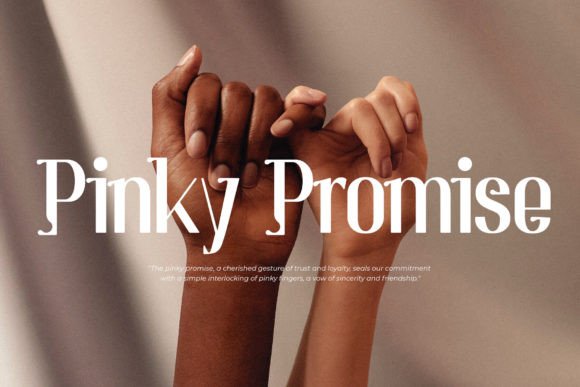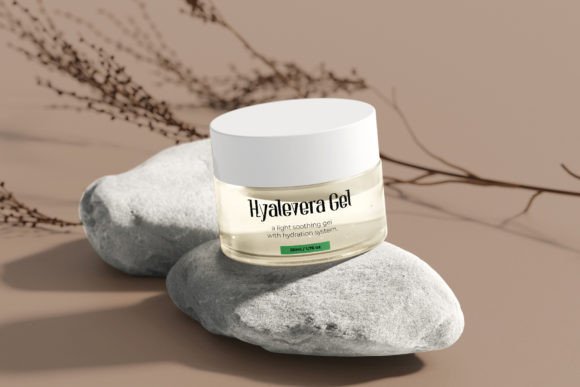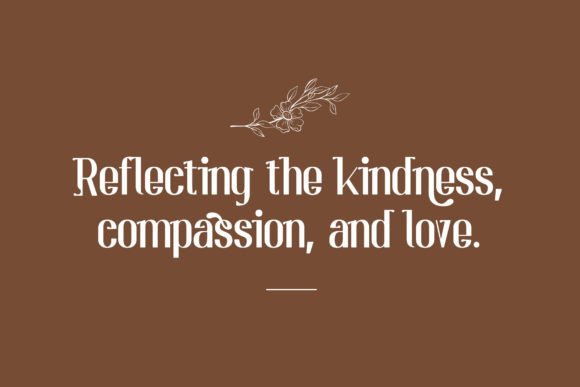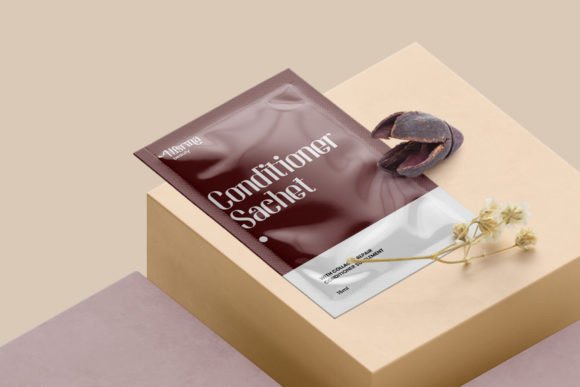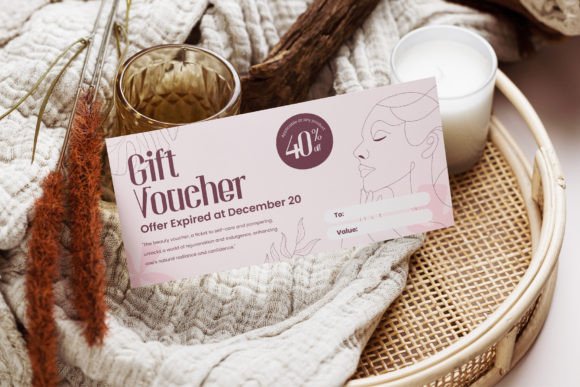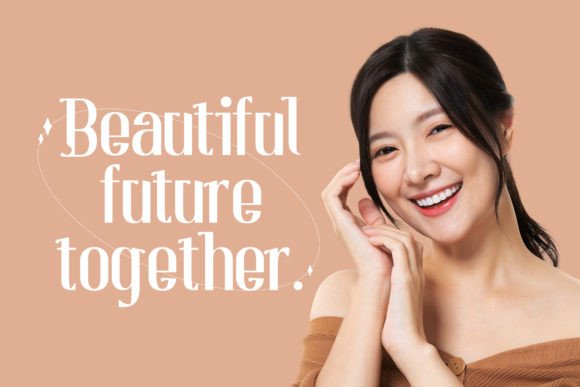
Introduction to Nisrina Font Font
Fonts play a crucial role in design, and the Nisrina Font font is a typeface that brings both character and versatility to any project. Whether you’re working on a branding project, a website, or a print design, the Nisrina Font font offers a unique style that can elevate your work.
Nisrina, a stylish display serif font, embodies a perfect blend of timeless sophistication and modern allure.
With its well-defined serifs and sleek lines, Nisrina exudes an air of elegance and refinement The characters stand tall and proud, showcasing a unique sense of confidence and poise.
The Nisrina Font font is more than just a typeface – it’s a design tool that helps you communicate your message with style and clarity. Its unique character set and versatile design make it suitable for a wide range of applications, from elegant invitations to bold headlines.
With its carefully crafted letterforms and balanced proportions, the Nisrina Font font ensures readability and visual appeal across all mediums.
What makes Nisrina Font font special?
The Nisrina Font font stands out with its unique design, exceptional readability, and versatility across various design applications.